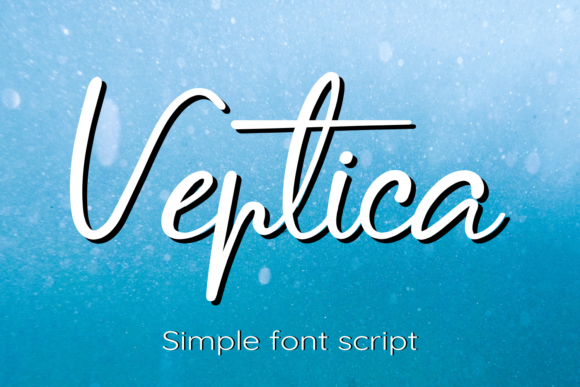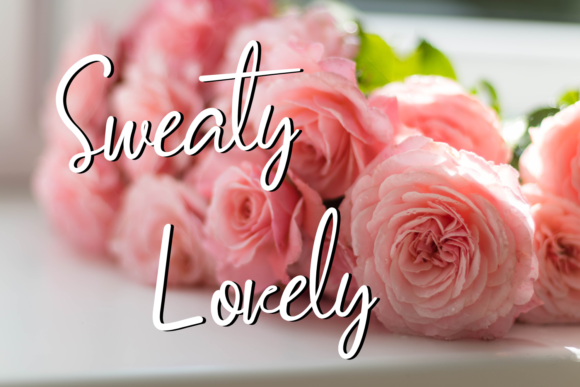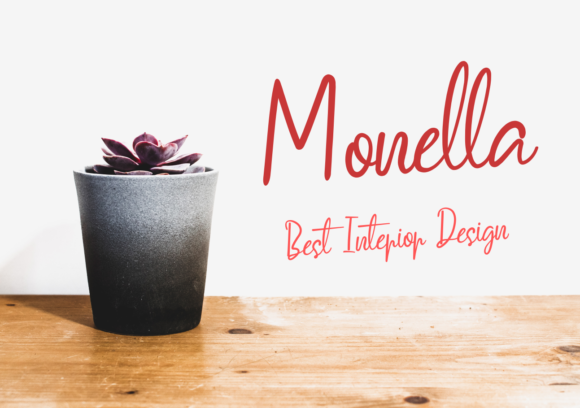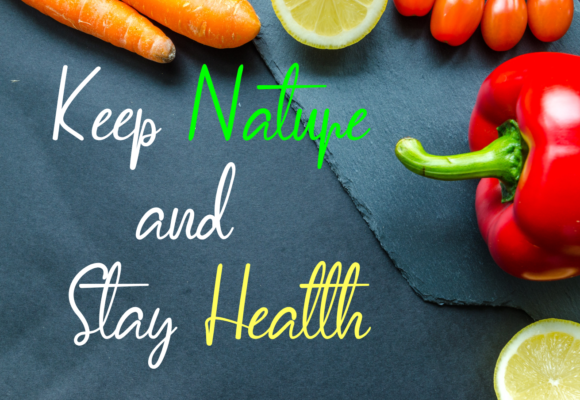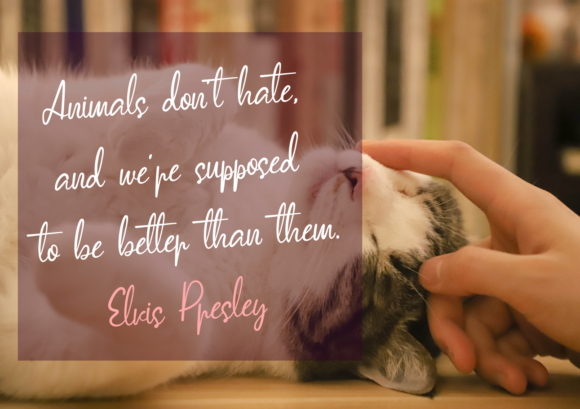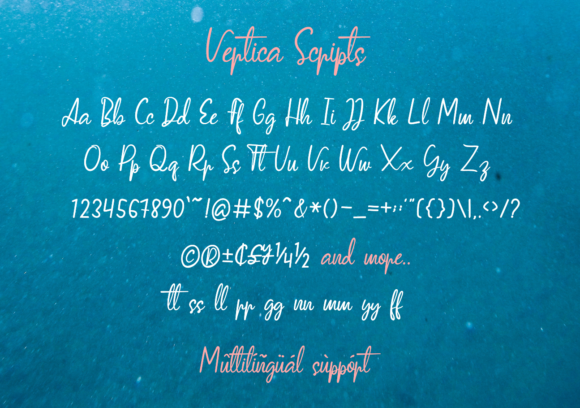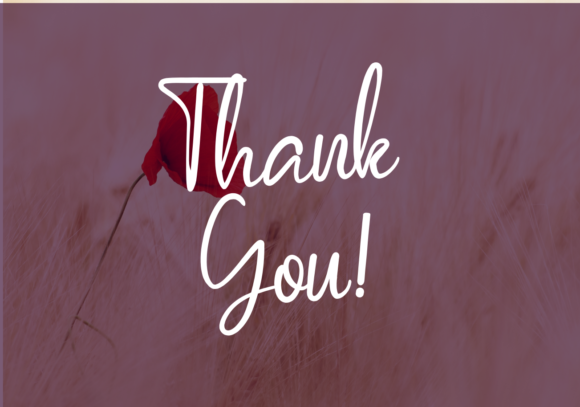
Vertica Font
About Vertica Font
Vertica is a clean, elegant, beautiful and simple script font. It will effortlessly add an authentic touch to your next creative project.